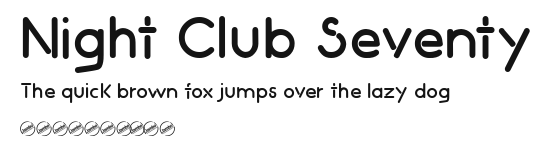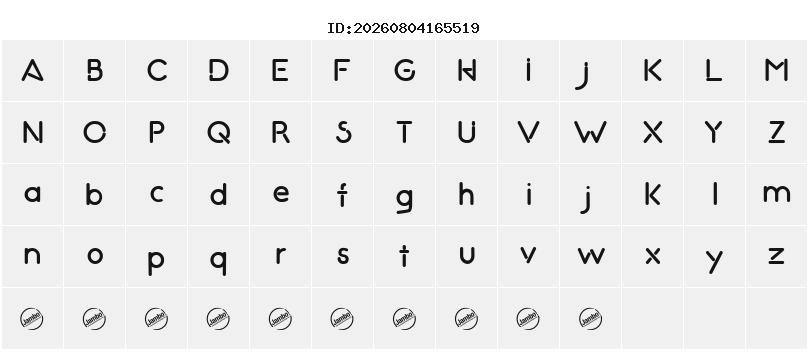
• Font Name: Night Club Seventy
• Designer: Jambo!
About Night Club Seventy.ttf
Night Club Seventy.ttf is a modern, elegant sans-serif font designed for ultimate readability and visual harmony. Perfect for branding, headlines, web design, and print materials.